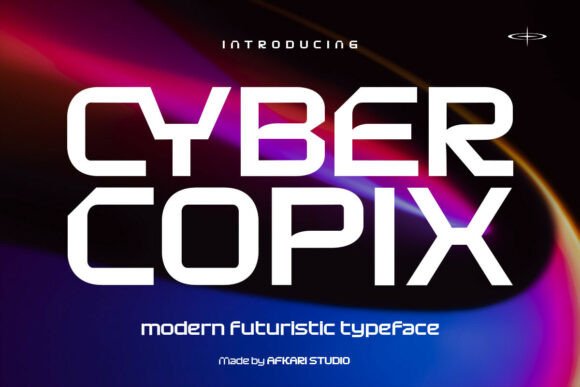
Introducing Cyber Copix Font: The Ultimate Futuristic Typeface for Modern Creators
In the realm of digital design, a bold and futuristic aesthetic is crucial for capturing the attention of modern audiences. For creators seeking to push the boundaries of innovation and style, Cyber Copix Font emerges as a game-changer. This cutting-edge typeface is meticulously crafted to embody the essence of cyberpunk culture, advanced technology interfaces, robotics, and futuristic gaming environments.
Unleash the Power of Cyber Copix
Cyber Copix is a modern, futuristic sci-fi font that combines sharp geometric construction with sleek modern styling. Its clean lines, strong structure, and high-tech personality converge to deliver a powerful futuristic atmosphere that instantly elevates your designs. Whether you’re working on esports branding, sci-fi movie titles, technology campaigns, gaming graphics, or futuristic UI concepts, Cyber Copix gives your typography a bold and professional futuristic identity.
Inspired by the Future
Cyber Copix draws inspiration from the dynamic and rapidly evolving world of technology and gaming. Its design is influenced by the sleek, high-tech interfaces found in advanced robotics, futuristic gaming environments, and cyberpunk culture. This font is perfect for designers and crafters who want to infuse their projects with a sense of speed, innovation, and modern energy.
Highlighted Features
- Complete Character Set: The font features a complete set of uppercase and lowercase letters, numerals, and punctuation, providing designers with a wide range of typographic options.
- Versatile and Adaptable: Cyber Copix is designed to stand out in both digital and print applications, making it an ideal choice for a variety of projects, from digital interfaces to marketing materials.
Applications of Cyber Copix
Cyber Copix Font is incredibly versatile and can be applied to a wide range of design projects, including:
- Esports Branding: Create bold and dynamic logos, jerseys, and marketing materials that resonate with the esports community.
- Sci-Fi Movie Titles: Add a touch of futurism and sophistication to your movie titles, posters, and promotional materials.
- Technology Campaigns: Elevate your tech brand with a modern and innovative typography that speaks to cutting-edge technology and innovation.
- Gaming Graphics: Enhance your game designs with a font that embodies the spirit of futuristic gaming environments.
- Futuristic UI Concepts: Design intuitive and visually stunning user interfaces with a font that screams modernity and sophistication.
Why Choose Cyber Copix?
In a world where digital design is constantly evolving, Cyber Copix Font stands out as a bold and futuristic typeface that meets the demands of modern creators. Its unique blend of geometric construction and sleek modern styling makes it an ideal choice for designers and crafters seeking to push the boundaries of innovation and style.
Cyber Copix Font is a powerful tool for designers and crafters who want to infuse their projects with a sense of futurism, innovation, and modern energy. With its comprehensive font package, complete character set, and versatile applications, Cyber Copix is poised to become a go-to typeface for creators seeking to make a bold statement in the world of digital design.